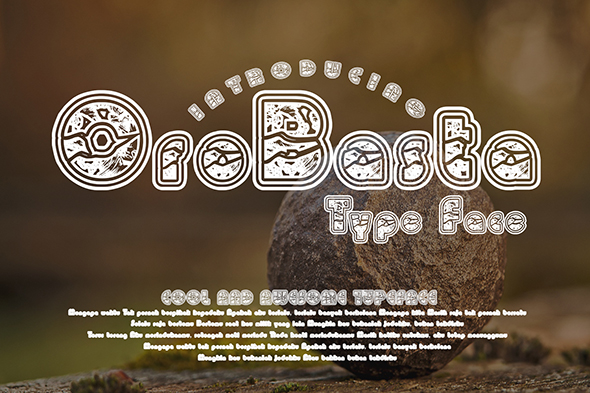
Step into the world of OroBasta font, a decorative masterpiece that will ignite your creativity and leave a lasting impression. This exceptional font exudes elegance and sophistication, making it the perfect choice for those seeking to make a statement.
Unleash your imagination and let OroBasta's intricate details and delicate curves guide you as you craft mesmerizing headlines, book covers, and posters that captivate audiences. Its versatility extends to invitations, greeting cards, and social media graphics, adding a touch of charm to every project.
With OroBasta, you'll transcend the boundaries of ordinary typography, embracing a realm where creativity flourishes. Its distinctive style will elevate your designs, captivating and enchanting viewers, leaving them eager to discover more.
OroBasta is more than just a font; it's an artistic expression that reflects your unique vision and passion. Whether you're a seasoned designer or just starting your creative journey, this font will unlock a new level of artistry within you.
Embrace the allure of OroBasta and embark on a creative adventure where every project becomes a work of art. Its versatility and timeless beauty will transform your designs, leaving a lasting impression on all who encounter them.
So, dive into the world of OroBasta today and elevate your creativity to new heights. Let your imagination soar as you discover the endless possibilities that await you with this captivating font.